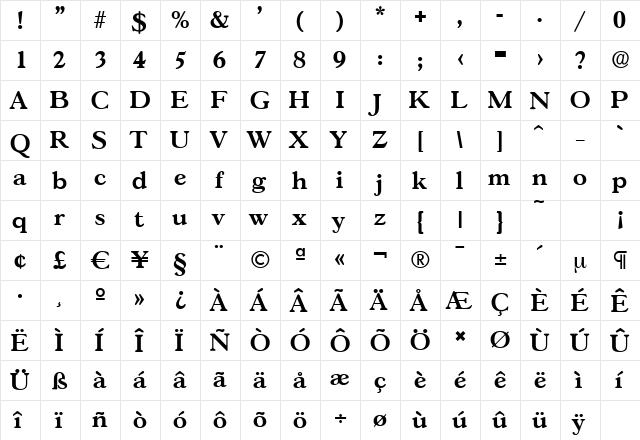
GascogneSerial Bold
Design Context for GascogneSerial Typeface
GascogneSerial is a composed and adaptable typeface that performs quietly and consistently across a wide range of design contexts. Its bold stroke weight gives it real presence on the page.